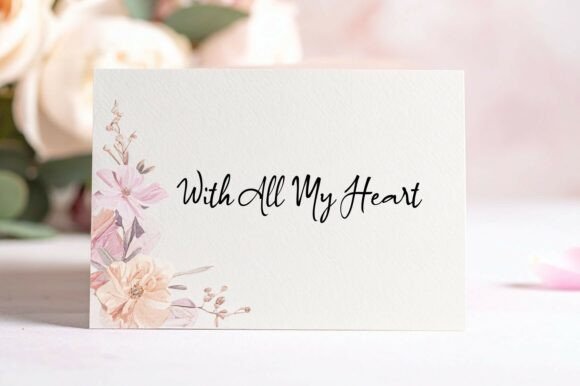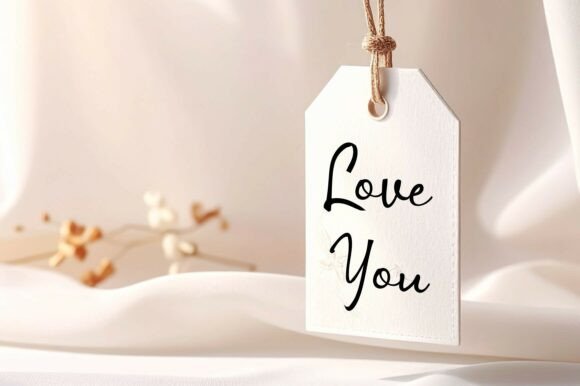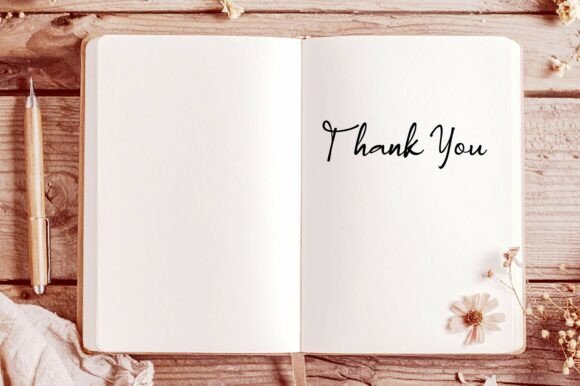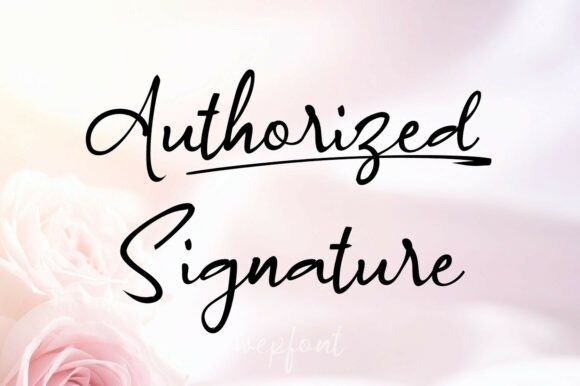
Introducing Authorized Signature Font: The Epitome of Elegance and Sophistication
In the realm of typography, few fonts manage to convey the essence of personal touch, exclusivity, and refined charm as effectively as the “Authorized Signature” font. This elegant, authentic, and sophisticated script font is meticulously designed to mimic a genuine handwritten signature, making it an ideal choice for designers and crafters seeking to imbue their projects with a sense of bespoke luxury.
What Sets Authorized Signature Apart
The distinguishing feature of the “Authorized Signature” font lies in its natural, flowing connectivity. Unlike many digital fonts that can appear stiff or mechanical, this exquisite script boasts varied stroke pressure and organic imperfections that lend it a truly human feel. These subtle nuances give the font a sense of authenticity, as if it were penned by hand rather than crafted on a digital platform.
The elegant loops and graceful transitions between letters in the “Authorized Signature” font suggest a confident and artistic hand. This makes it particularly well-suited for projects where a signature-style aesthetic is desired, such as in branding, packaging, and stationery design. Whether used for a personal logo, a business card, or a letterhead, this font is sure to make a lasting impression.
A Comprehensive Character Set for Versatility
The “Authorized Signature” font includes a comprehensive set of uppercase and lowercase characters, numerals, and essential punctuation glyphs. This extensive character set ensures that designers have the flexibility to craft a wide range of texts, from simple one-liners to more complex paragraphs, all while maintaining the font’s distinct, personal touch.
Each character in the “Authorized Signature” font has been meticulously designed to ensure that it not only meets but exceeds the expectations of designers and crafters. The fluid yet legible form of the font guarantees excellent readability, making it suitable for both digital and print applications.
The Benefits of Using Authorized Signature Font
There are several benefits to using the “Authorized Signature” font in your design projects:
- Personal Touch: The font’s natural, handwritten appearance adds a personal touch to any text, making it ideal for projects where a human element is desired.
- Exclusivity: The bespoke feel of the “Authorized Signature” font lends an air of exclusivity to any project, making it perfect for luxury brands, high-end products, and special occasions.
- Refined Charm: The elegant and sophisticated nature of the font adds a touch of refined charm to any text, elevating it from ordinary to extraordinary.
- Versatility: With its comprehensive character set and excellent readability, the “Authorized Signature” font can be used in a wide range of applications, from digital media to print materials.
In conclusion, the “Authorized Signature” font is an exquisite addition to any designer’s or crafter’s toolkit. Its elegant, authentic, and sophisticated script offers a unique blend of personal touch, exclusivity, and refined charm that is sure to elevate any project. With its comprehensive character set, excellent readability, and versatility, this font is an ideal choice for a wide range of applications. So why settle for an ordinary font when you can add a touch of bespoke luxury to your designs with the “Authorized Signature” font?